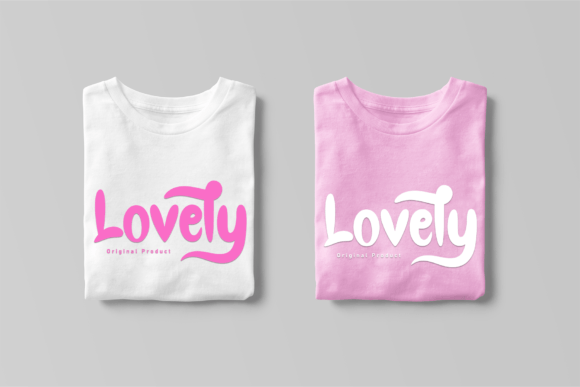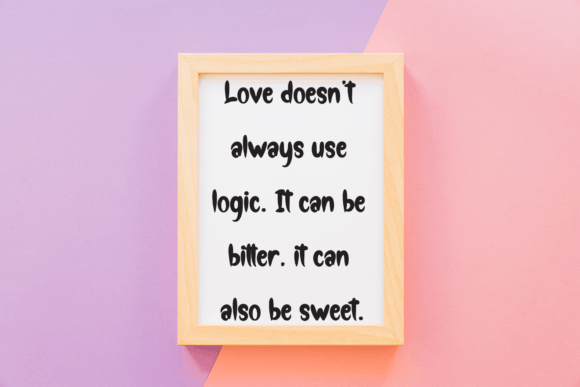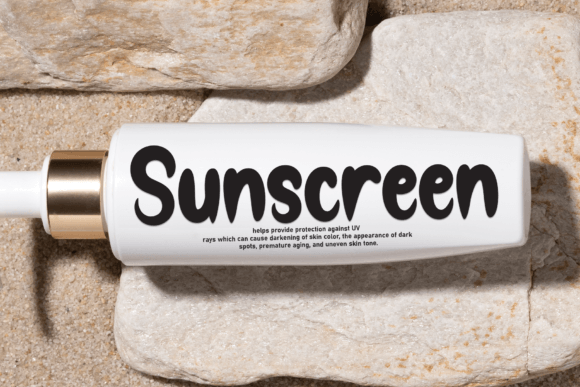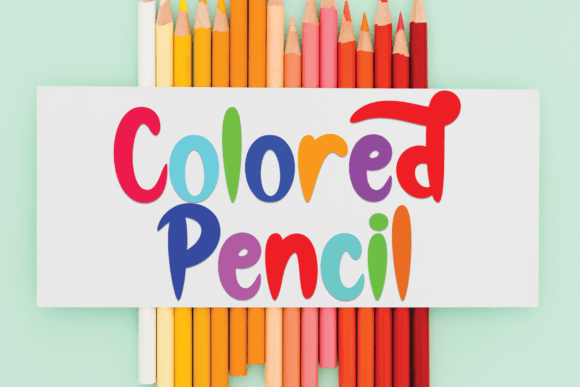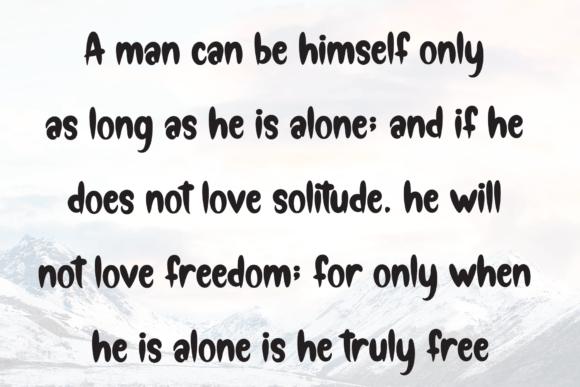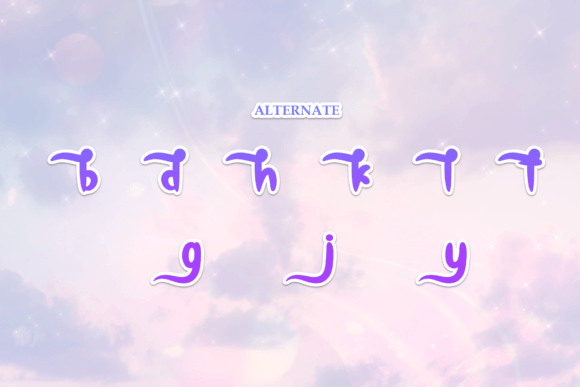
Introduction to Magically Font
Have you ever been working on a creative project, and suddenly, the perfect font pops into your mind? That’s exactly what happened to me when I stumbled upon the enchanting Magically Font. Its unique, handwritten style instantly captured my attention, and I knew I had to dive deeper.
As a designer, I’ve had my fair share of high-quality fonts, but there’s something special about Magically Font that sets it apart. Its beautiful, intricate details and transparent background make it a dream to work with, and the best part? It’s completely free to download and use in your design projects.
Whether you’re creating a logo, branding, or just a simple quote, Magically Font is an absolute must-have in your design arsenal. In this article, we’ll explore the world of Magically Font and discover why it’s a valuable resource for any creative project.
Key Features of Magically Font
- Unique, hand-drawn design, adding a touch of whimsy and personality to any creative project or design.
Honest Review: Magically Font
As a designer, I’m always on the lookout for high-quality design resources to elevate my creative projects. Magically Font caught my attention with its free download option, so I decided to give it a try.
- What works well: ✨ The font has a beautiful, whimsical design that adds a touch of magic to any project. It’s perfect for illustrations, graphics, or even logos.
- ⚠️ The font doesn’t have a wide range of weights or styles, which may limit its versatility in certain design projects.
Overall, I think Magically Font is a great addition to any designer’s toolkit, especially for free. While it may have some limitations, its unique design and transparency options make it a valuable resource for creative projects.